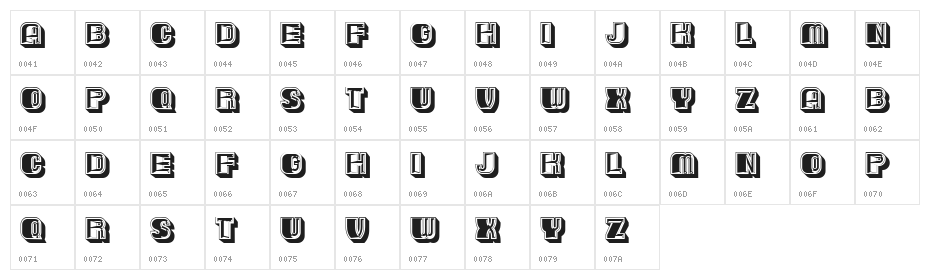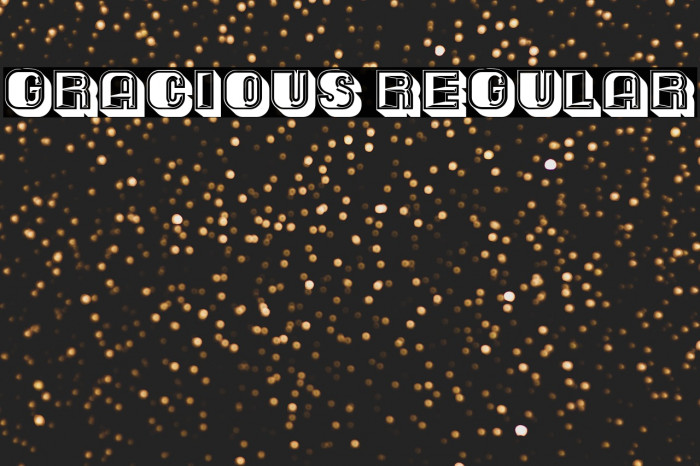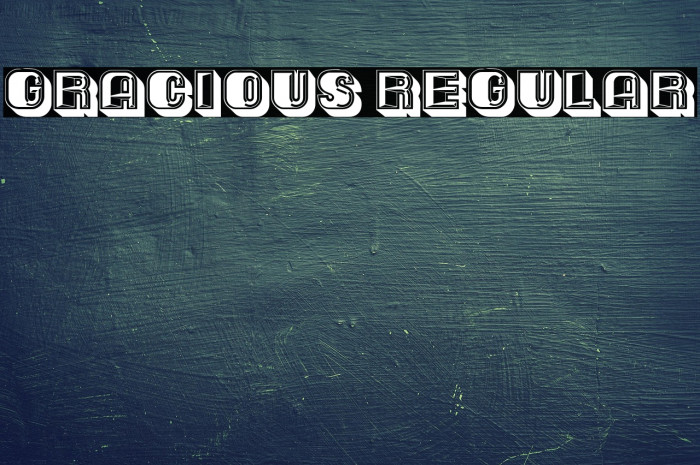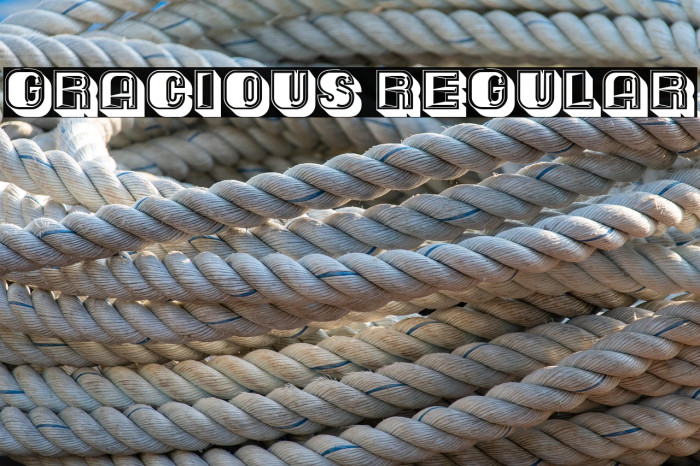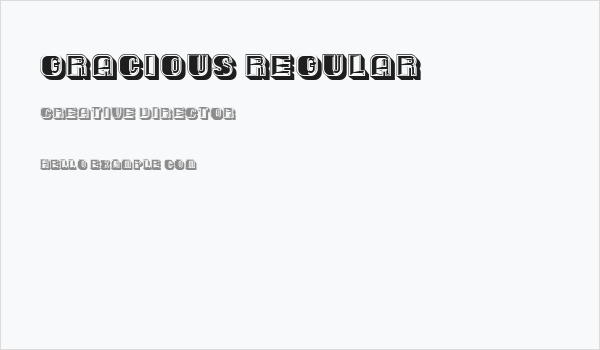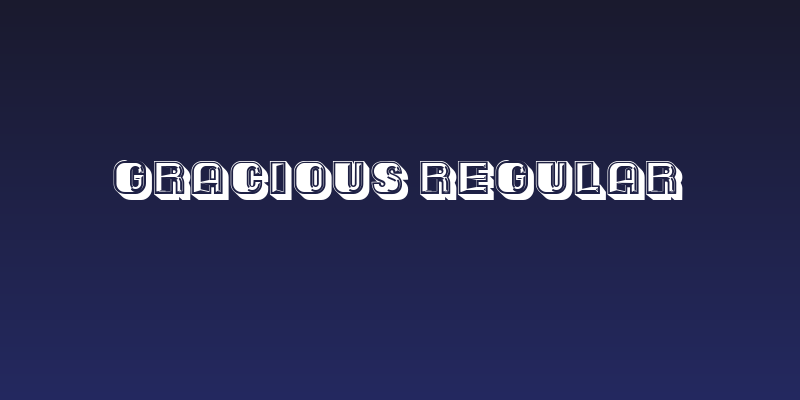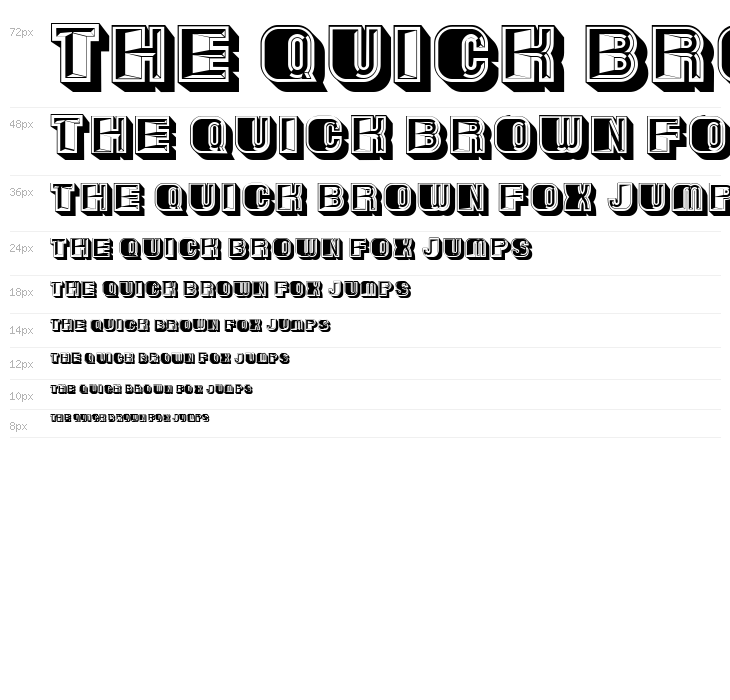
Gracious Regular Font
Gracious Regular Description
This font features a bold, three-dimensional appearance with a strong shadow effect that gives it a striking and impactful look. The characters are uppercase and have a blocky, geometric style with clean lines and sharp angles. The shadowing adds depth and a sense of movement, making it ideal for creating eye-catching designs. The font's structure is consistent, with each letter maintaining a uniform width and height, contributing to its cohesive and professional appearance. The boldness of the font makes it suitable for headlines, posters, and any design that requires a strong visual presence.
| Proposed Projects | Ideal for posters, headlines, branding, and any design requiring a bold visual impact. |